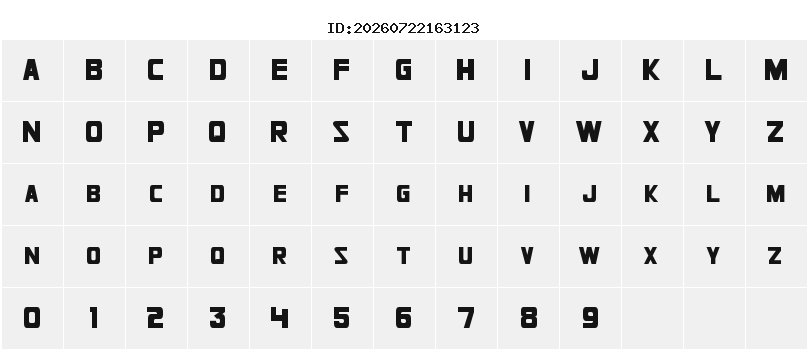
• Font Name: Jhiaxus
• Designer: Neale Davidson
About Jhiaxus.ttf
Jhiaxus.ttf is a modern, elegant sans-serif font designed for ultimate readability and visual harmony. Perfect for branding, headlines, web design, and print materials.